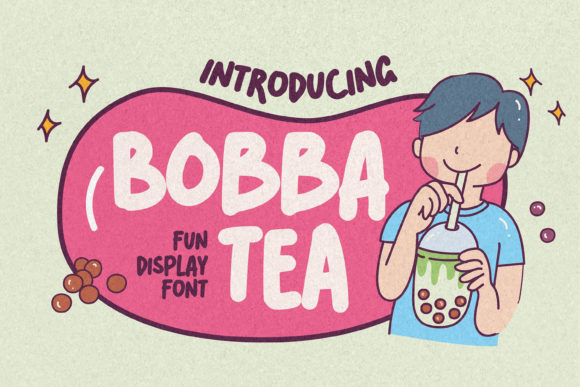
**Introducing Bobba Tea Font: The Sweetest Treat for Your Designs**
Indulge in the irresistible charm of Bobba Tea, a delightful display font that will add a dash of playfulness to your creative endeavors.
This charming font evokes the joy of savoring a refreshing bubble tea, with its bouncy and effervescent letterforms. Its playful curves and bubbly ascenders create a sense of whimsy, making it perfect for capturing the attention of your audience.
Whether you're crafting a captivating logo, designing eye-catching social media posts, or creating invitations that exude happiness, Bobba Tea Font is your secret ingredient for adding a touch of sweetness to your projects.
Embrace the boba love with this adorable font, and watch as your designs come alive with joy and creativity. Bobba Tea Font: The perfect treat for your design desires!